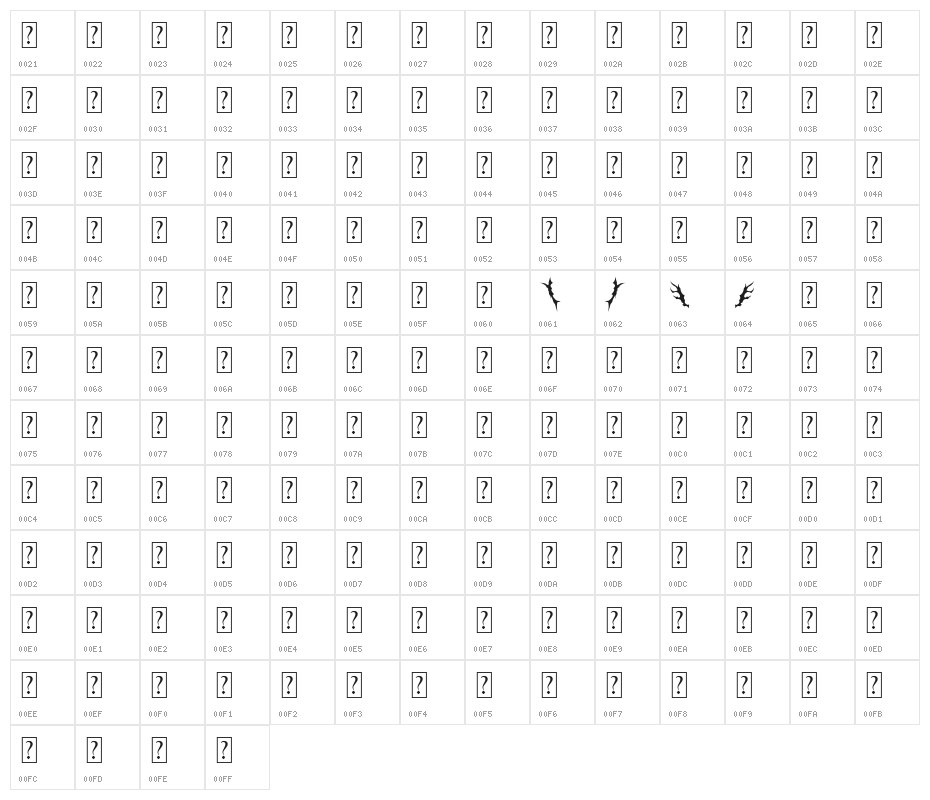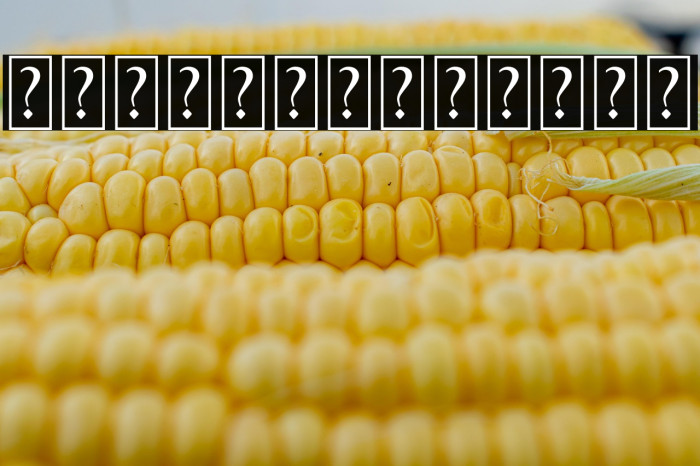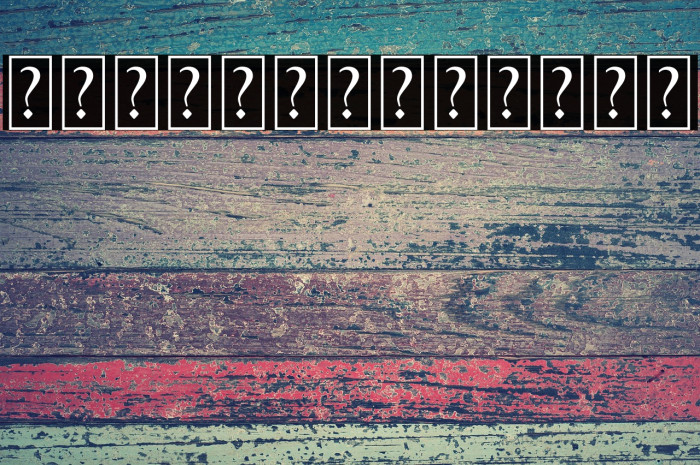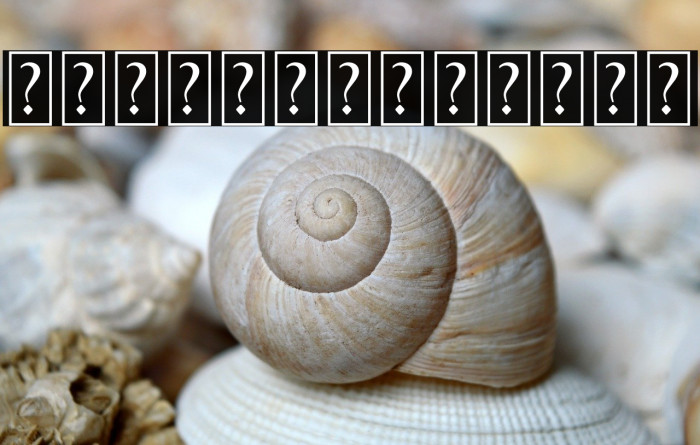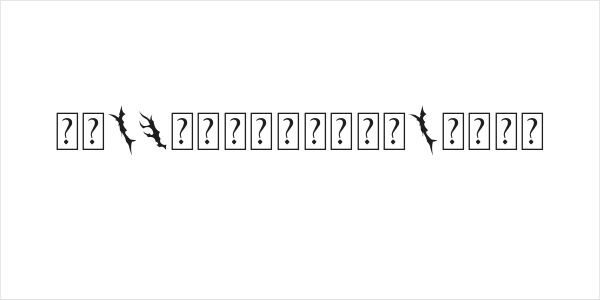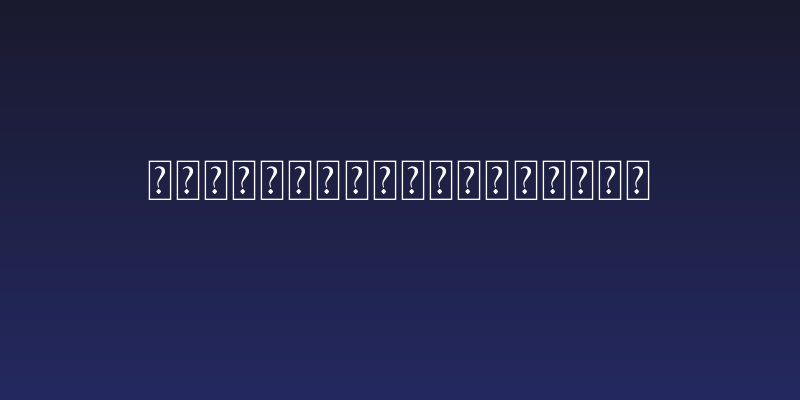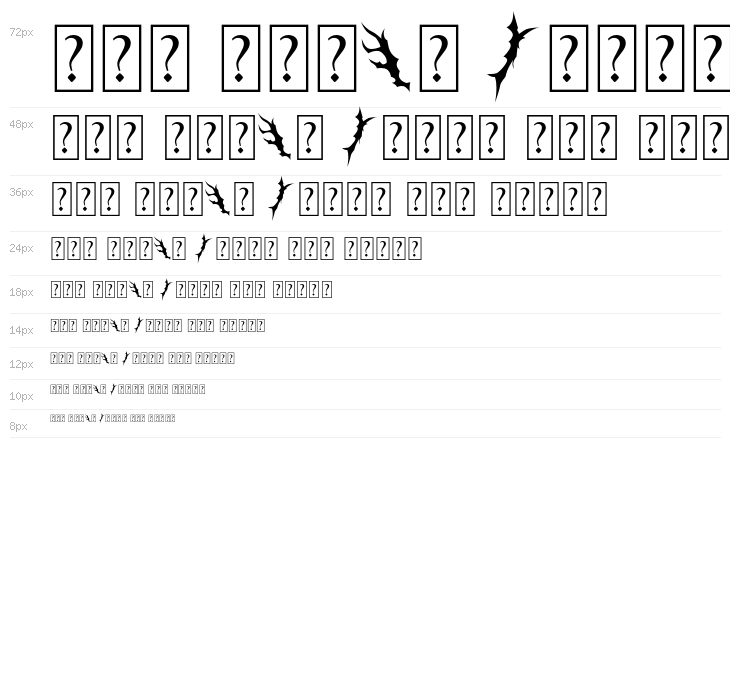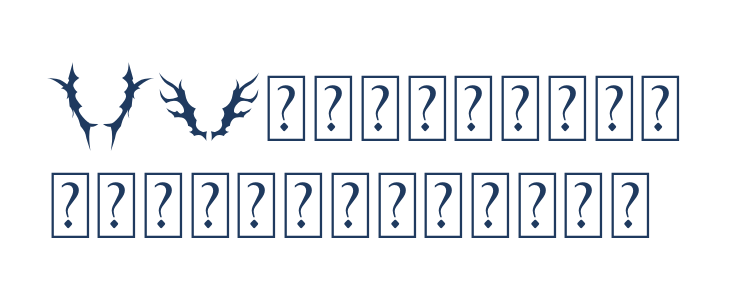
BlackthornOrnament Font
BlackthornOrnament Description
Decorative font with intricate, thorn-like ornamentation, featuring sharp, pointed elements and a gothic aesthetic.
| Overall Style | Gothic, Decorative |
| Use Case | Logos, Decorative headings |
| Proposed Projects | Fantasy book covers, gothic-themed posters, decorative invitations. |